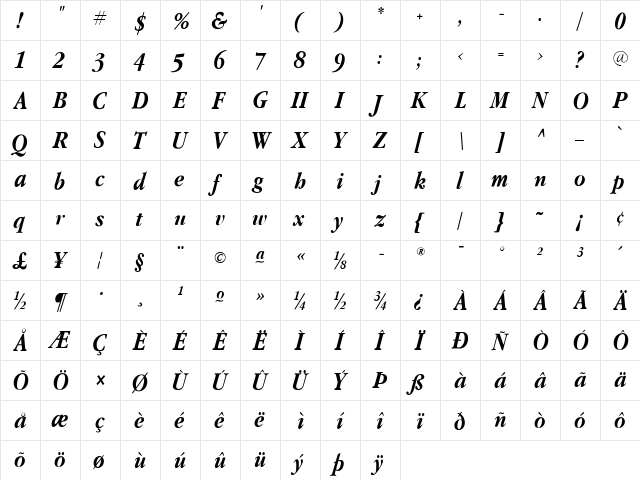
Design Context for GaramondFLFCond-BoldItalic Typeface
GaramondFLFCond-BoldItalic offers clean, dependable letterforms without strong stylistic allegiance, making it a practical choice for designers who need flexibility. Its italic angle brings a sense of urgency and motion to the letterforms. Its bold stroke weight gives it real presence on the page. Its narrow stance lets it pack a punch even in space-constrained designs.
Pro Tip: Try GaramondFLFCond-BoldItalic for annotation and caption copy alongside an upright companion — the contrast in angle creates a dynamic but ordered typographic system.